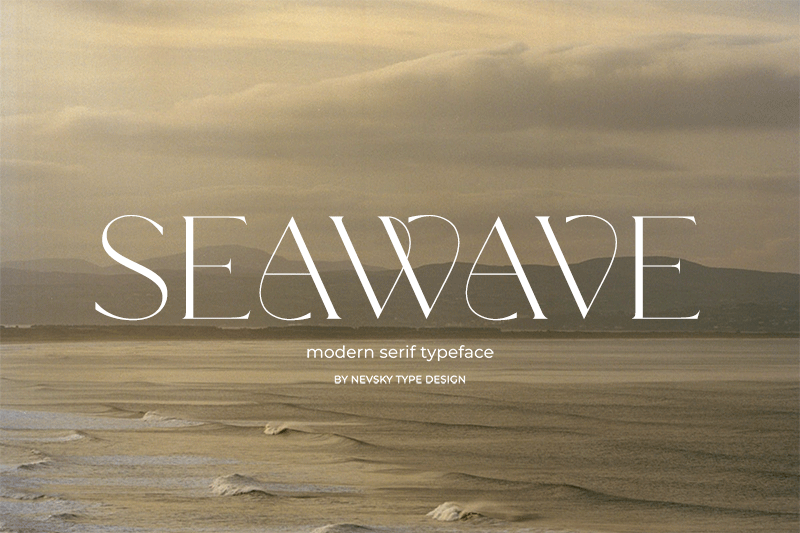
Preview and download NT Seawave Font. Created by Artem Nevsky in Basic Serif styles with Free for personal use license.
Font name: | NT Seawave |
Author: | Artem Nevsky |
NT SEAWAVE is a new serif font. Supports over 200 Latin-based languages. FOR PERSONAL USE ONLY! FOR PERSONAL AND COMMERCIAL USE, please download here: https://creativemarket.com/nevsky.type https://thehungryjpeg.com/store/nevsky-type https://pixelsurplus.com/collections/free-fonts/products/nt-seawave-modern-serif-typeface -------- my works: https://www.behance.net/artemnevsky email: nevsky.type@gmail.com |